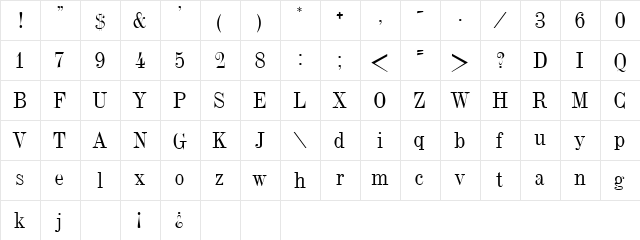
Cryptographer Plain Regular
Design Context for Cryptographer Plain Typeface
Cryptographer Plain offers clean, dependable letterforms without strong stylistic allegiance, making it a practical choice for designers who need flexibility.